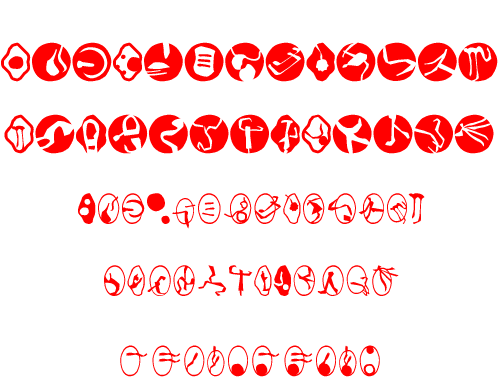
TRIBE 03: M SQUARE: Anything
Fusion, Wen-Hua Hu.
Like nuclear reactions or the fusing of atoms, the fuse of multiple
cultures, cuisines and music release great quantities of energy, generating
novel and new hybrids. These hybrids in turn become an ubiquitous
and perpetuate chain reaction, producing many more reactions. Fusion
is organic to the society we love. Hybrids are living and growing
things that exist in our minds and bodies. Fusion of letters and symbols
is always a new way to communicate a mixed iconography to human beings.